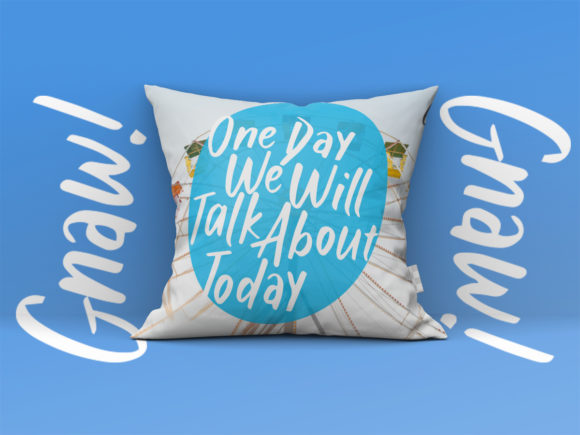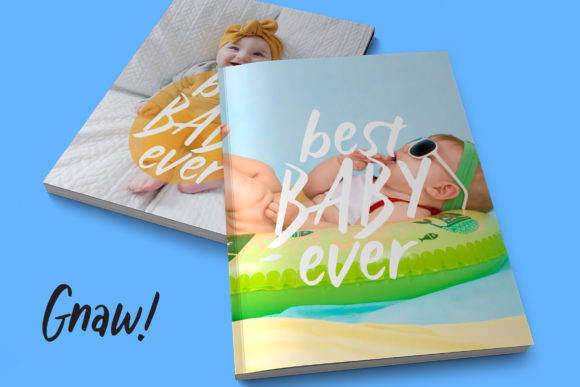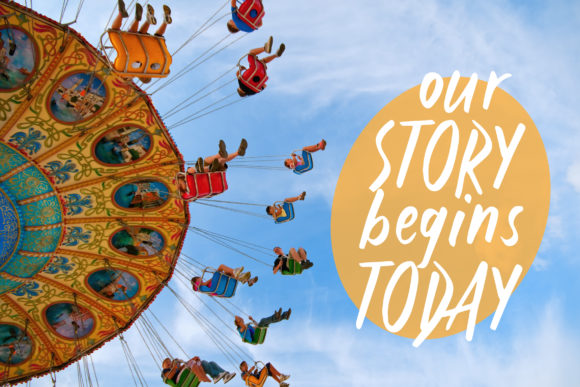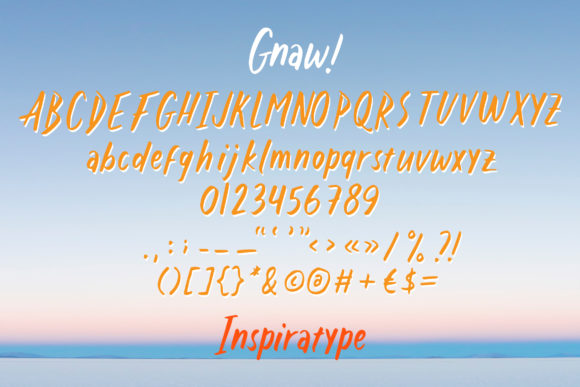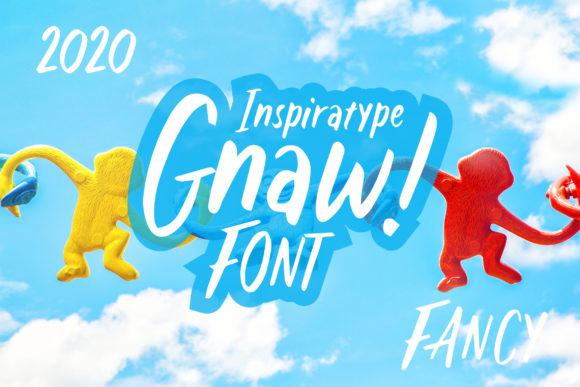
The Joy of Gnaw Font: Unleashing Creativity with a Playful Display Font
I still remember the time I was working on a project for a children’s book, and I was struggling to find the perfect font to bring the story to life. The client wanted something fun, quirky, and authentic, but I just couldn’t seem to find the right fit. That’s when I stumbled upon Gnaw Font, and it was love at first sight! 💕
Gnaw embodies fun, quirkiness, and authenticity, making it the perfect display font to turn any creative idea into a true standout. With its childlike playfulness, Gnaw is ideal for kids and school projects, as well as any design project that needs a touch of whimsy.
An Honest Review of Gnaw Font
What I Love About Gnaw Font ✨
- Unique and quirky design that’s sure to grab attention ✅
- Perfect for display text, titles, and headings
- Childlike playfulness that’s great for kids and school projects
- Authentic and genuine feel that’s hard to find in modern fonts
- Easy to read and understand, even at smaller sizes
While Gnaw Font is an amazing display font, it’s not without its limitations. Here are a few things to keep in mind:
- May not be suitable for body text or longer paragraphs 🤔
- Limited availability of certain characters or glyphs
- May require some manual kerning or adjustments for optimal results
The Backstory of Gnaw Font
Gnaw Font was designed with the intention of creating a unique and playful display font that would bring a touch of whimsy to any design project. The designer wanted to create a font that was both fun and authentic, with a childlike quality that would appeal to kids and adults alike.
| Font Name | Gnaw Font |
| Author | InspiraType |
Q: What is Gnaw Font best used for?
A: Gnaw Font is best used for display text, titles, and headings, particularly in kids and school projects, or any design project that needs a touch of whimsy.
Q: Is Gnaw Font suitable for body text?
A: While Gnaw Font is an amazing display font, it’s not recommended for body text or longer paragraphs. It’s best used for short, attention-grabbing text.